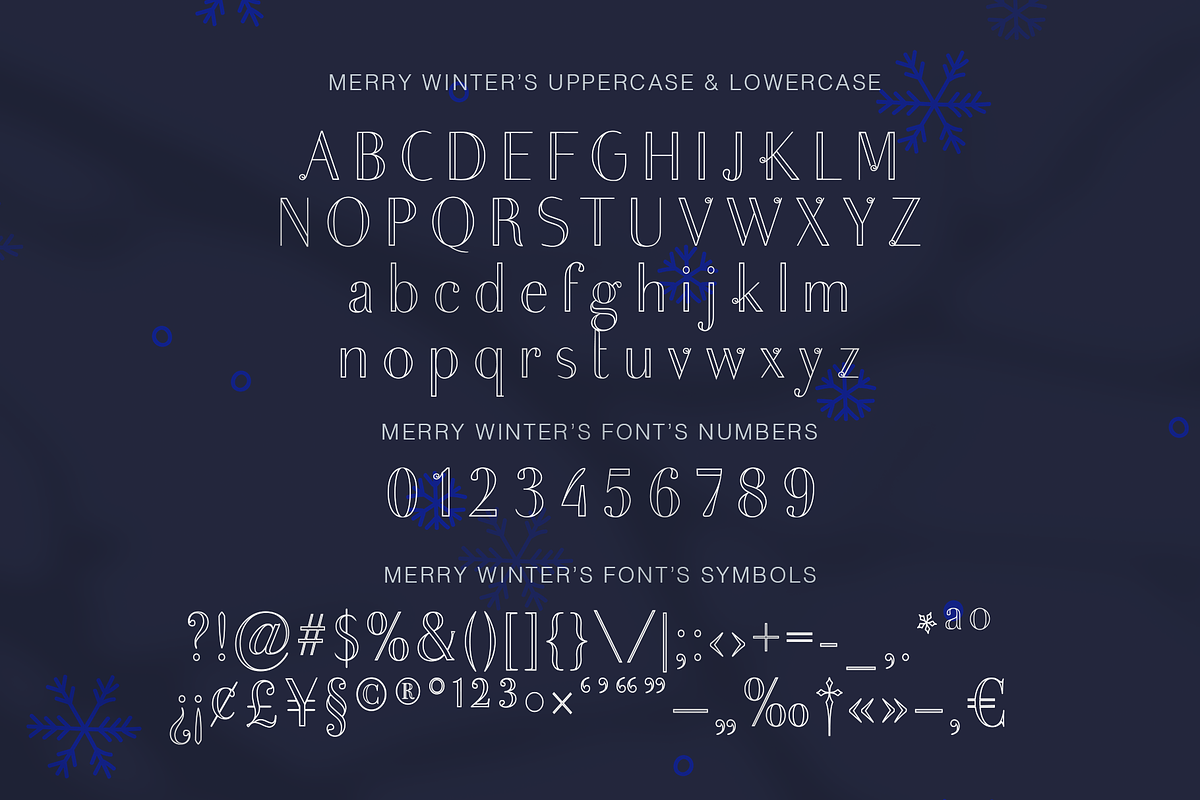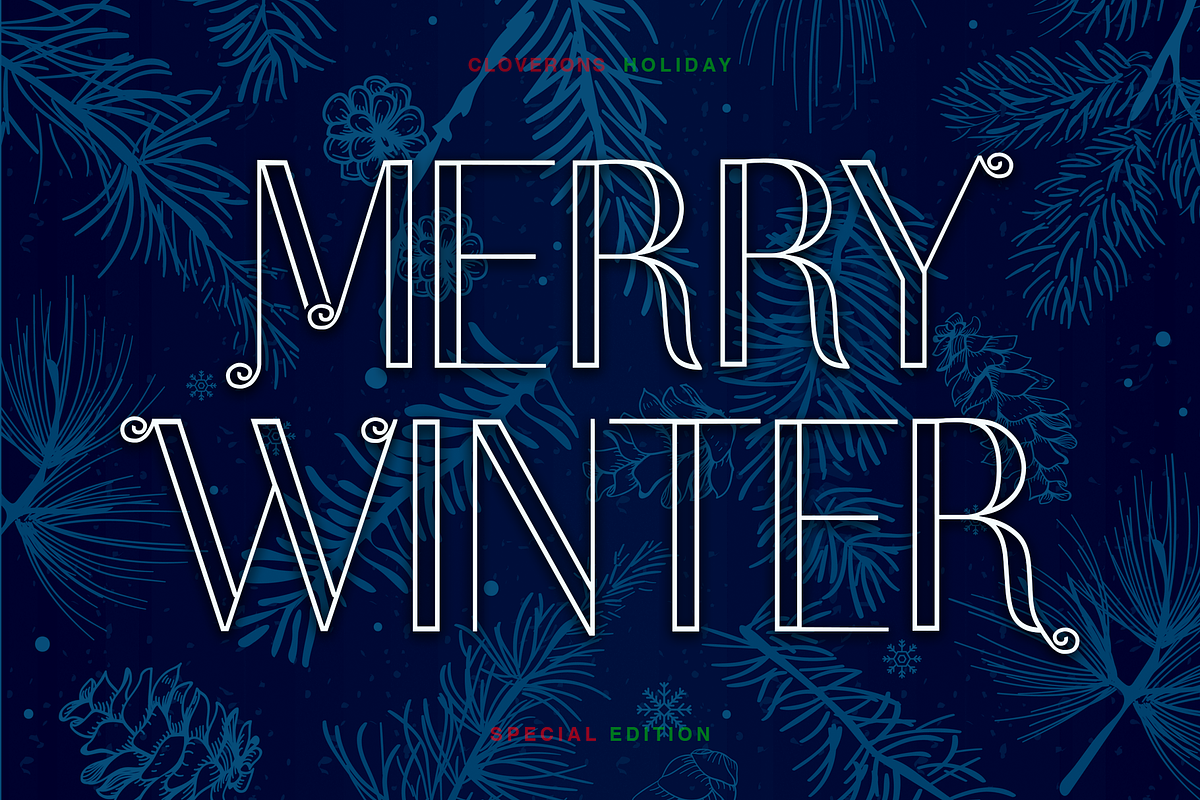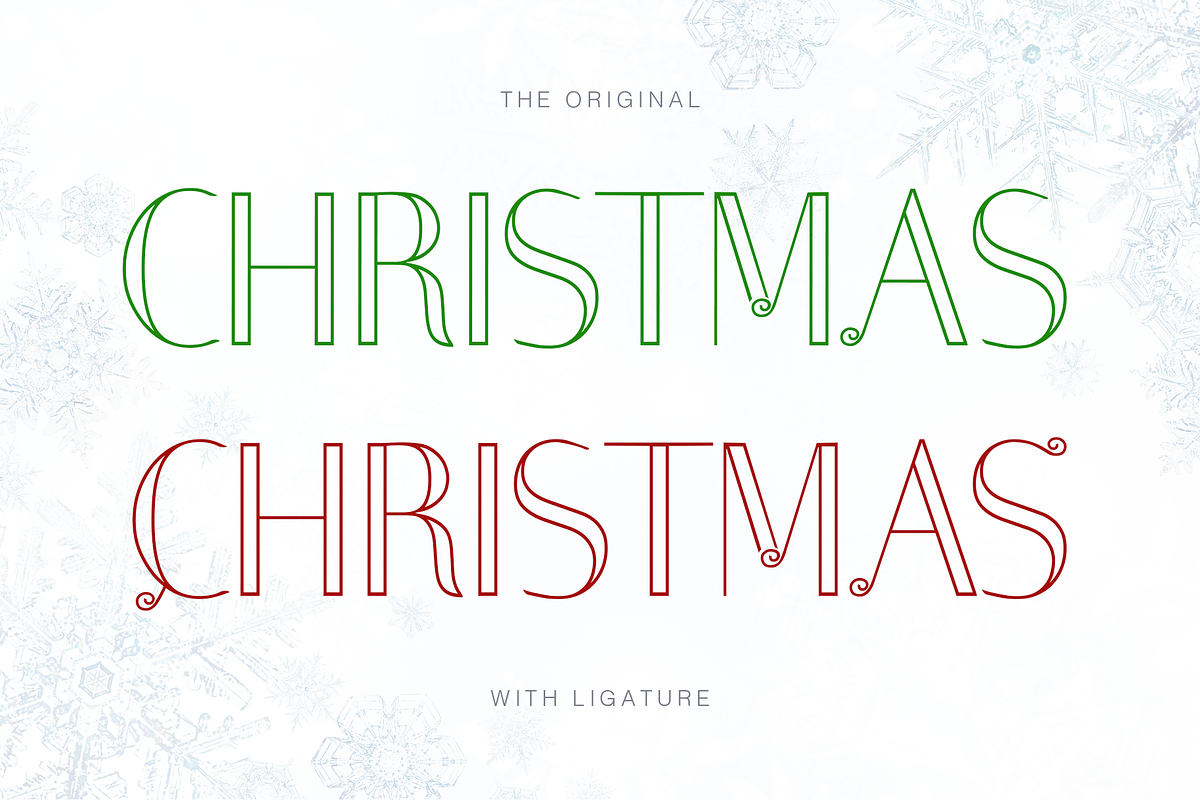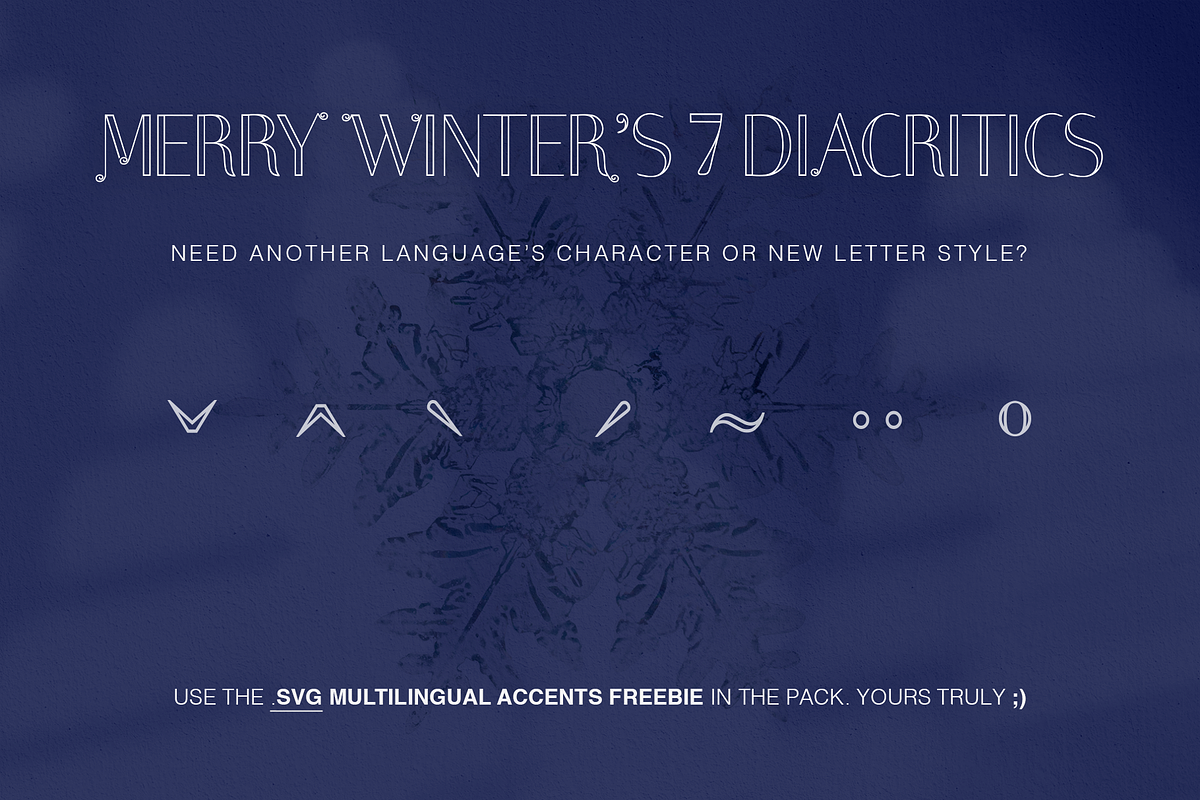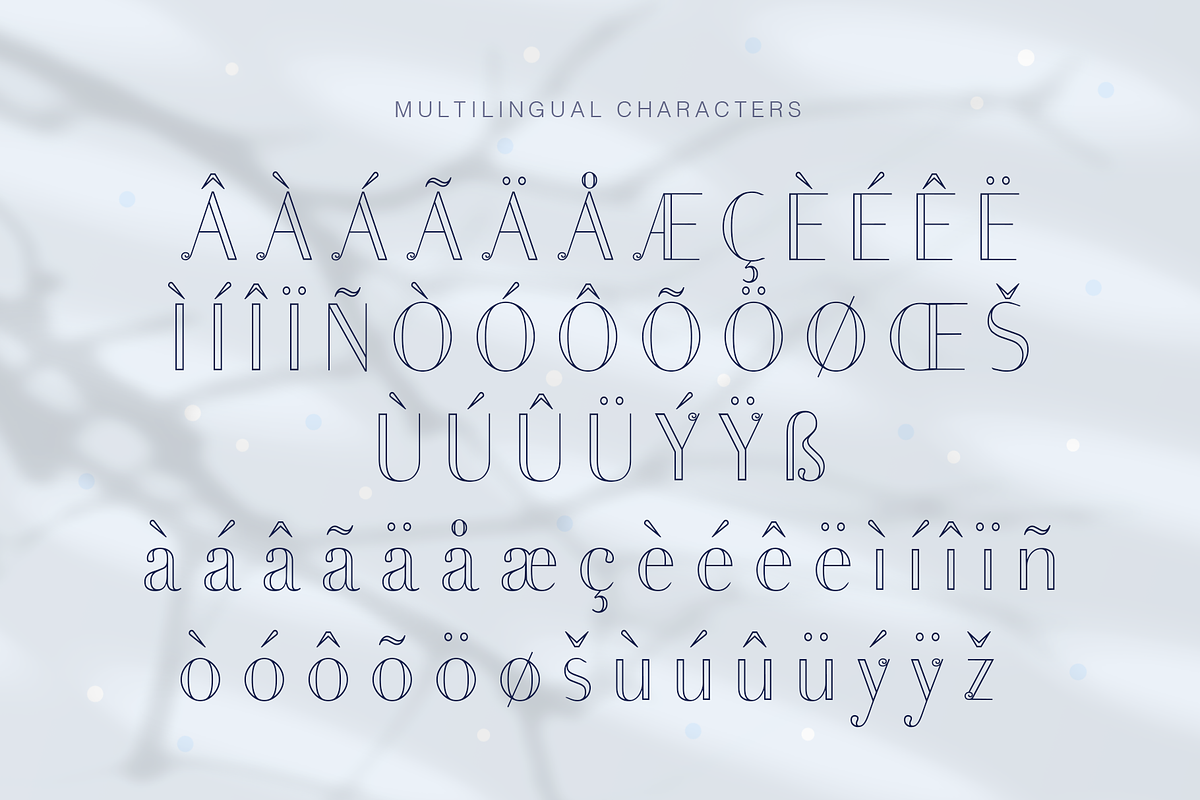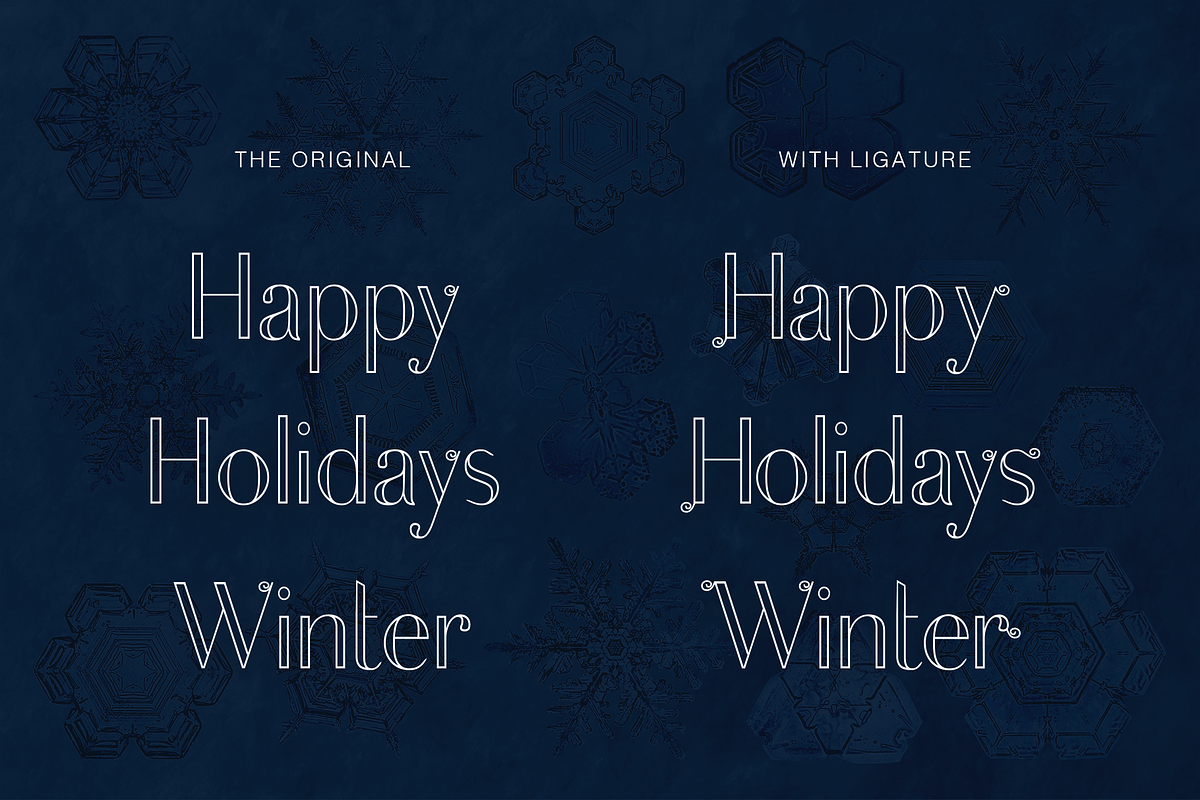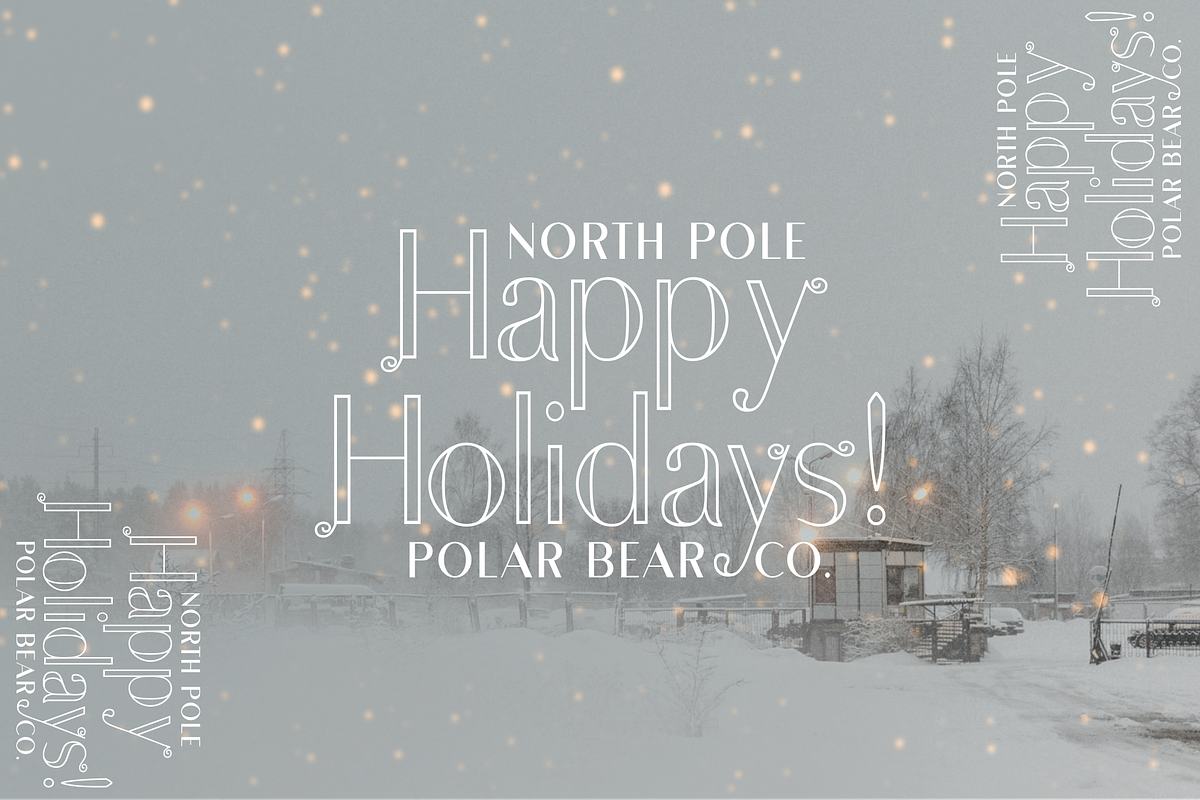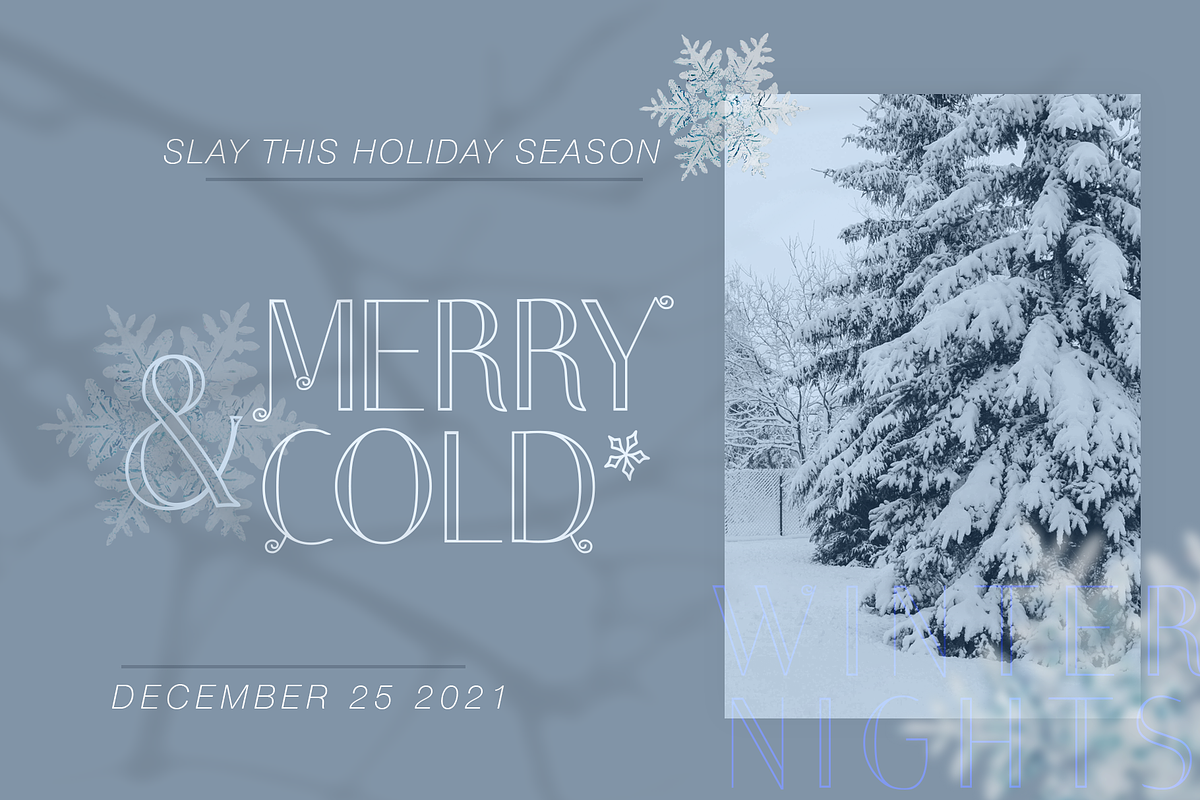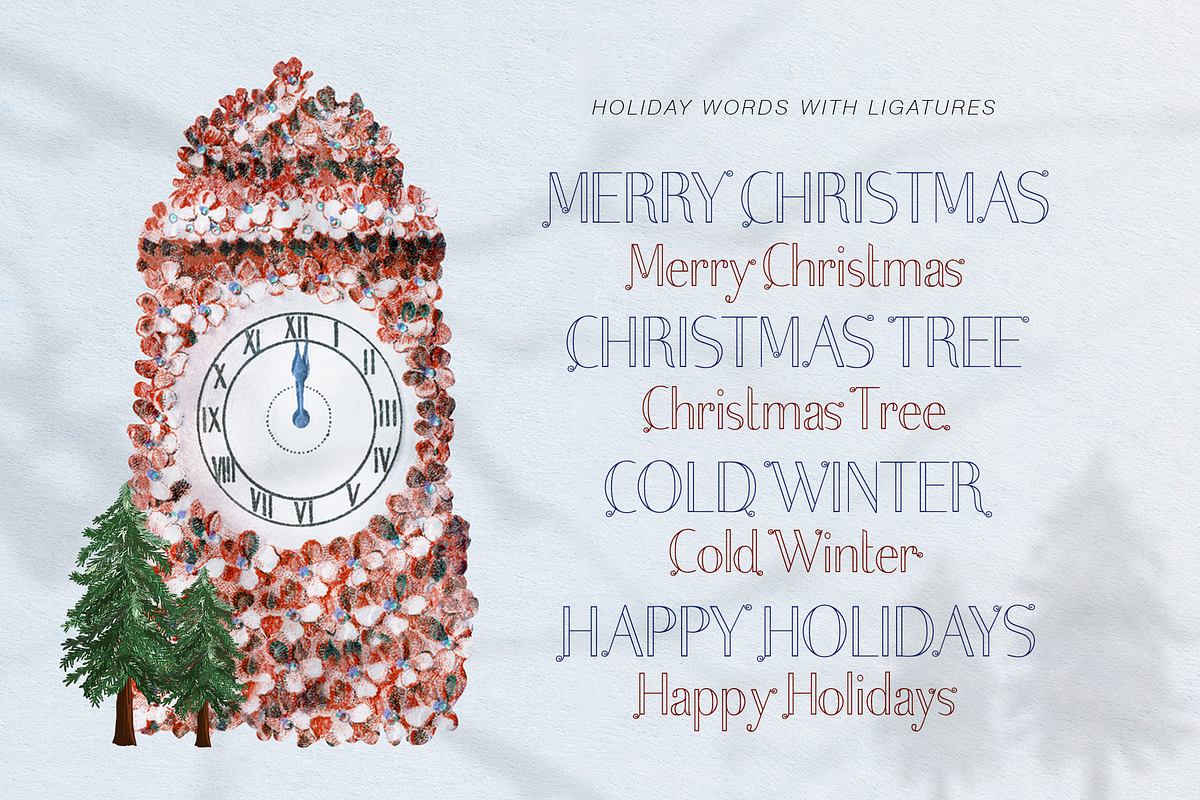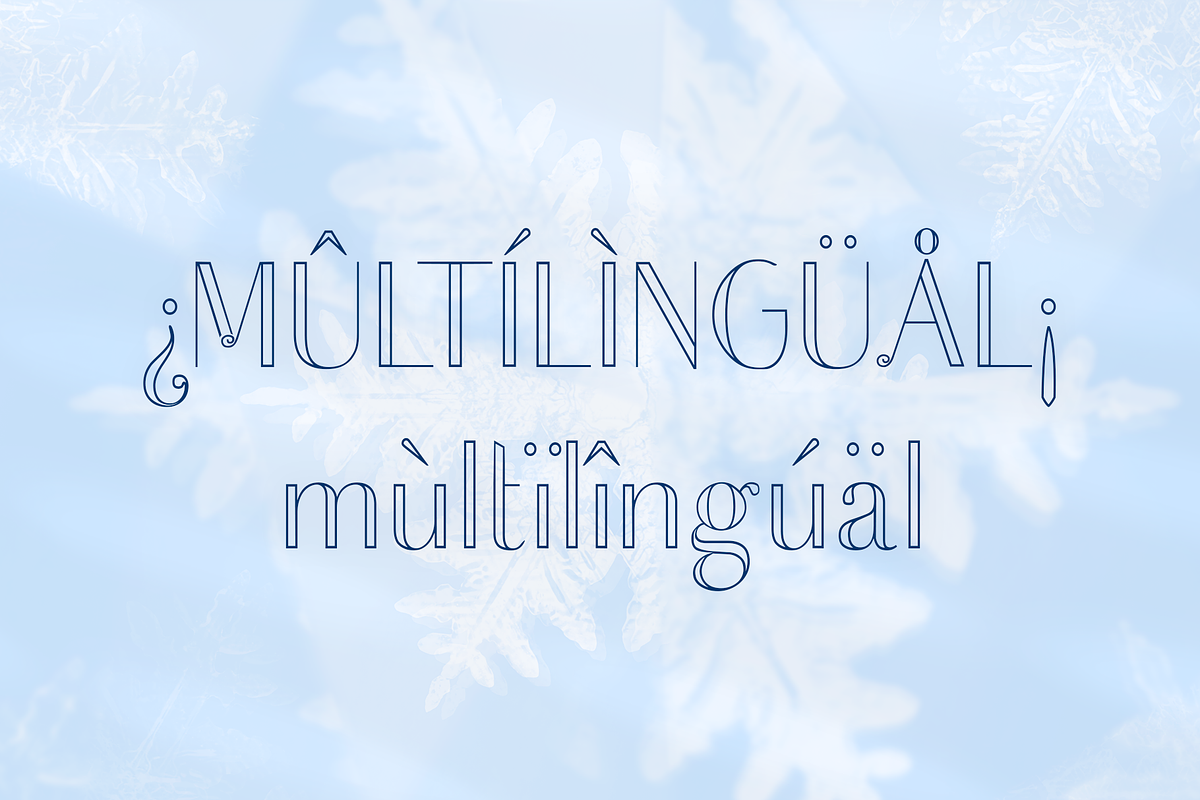
Merry Winter Christmas Display Font
Meet Merry Winter, a new Christmas Holiday Display Sans Serif Typeface of the 21st century. It has outlined letter accents and comes with swirly ligatures I designed thoughtfully for holiday words to use for social media posts, advertising and greeting cards this Holiday Season! It's a very versatile font that works as standalone or paired with other fonts.
- Weight - Regular
- Lowercase & Uppercase
- Swirl Holiday Ligatures
- Numerals &Punctuation
- Multilingual Characters
- Language Support: Western Europe
Bonus: 7 Multilingual Accents in .svg file - also known as diacritics so I can hopefully cover more languages :)